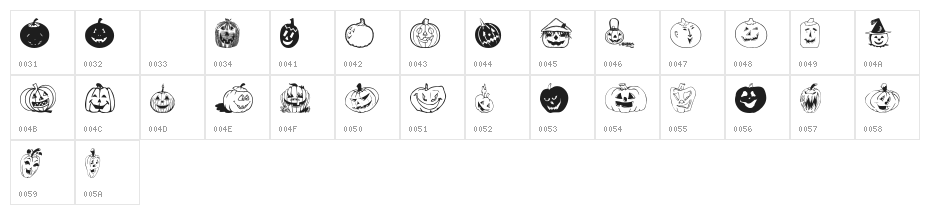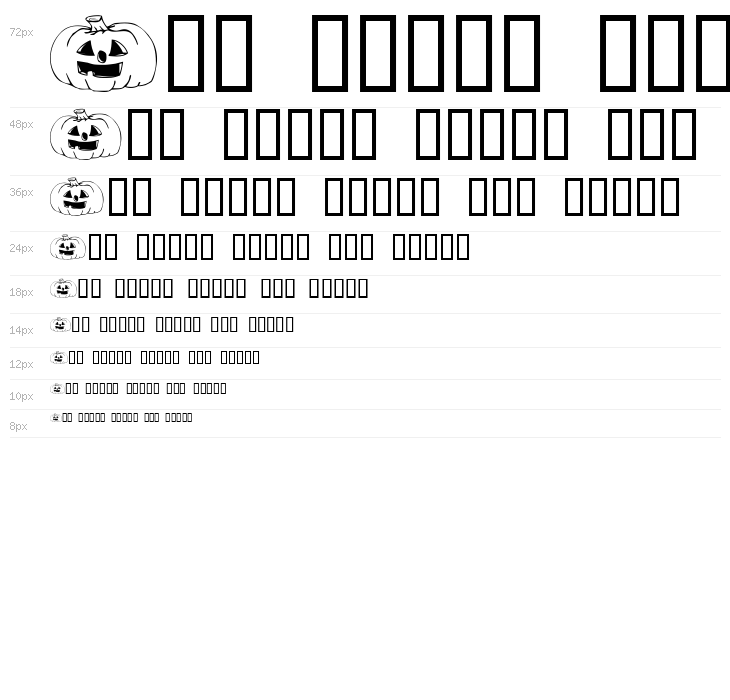
Bumkins Font
Bumkins Description
This decorative font features a playful and spooky Halloween theme, with each character represented by a unique jack-o'-lantern design. The pumpkins vary in expression and style, showcasing a range of emotions from mischievous to friendly. The font is highly illustrative, with intricate details that capture the essence of Halloween festivities. Each character is distinct, making it ideal for creating eye-catching and thematic designs. The font's whimsical nature and detailed artwork make it perfect for seasonal projects that require a touch of Halloween spirit.
| Use Case | Headlines, Logos, Themed Designs |
| Proposed Projects | Ideal for Halloween party invitations, themed posters, seasonal greeting cards, and festive banners. |